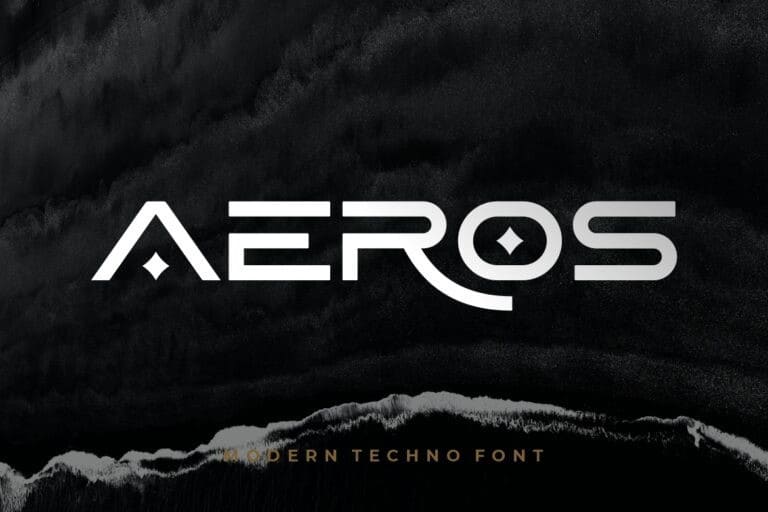
Aeros Font
Aeros Display Font is a mono weight and ultra modern sans apt for a wide range of typographic applications and printed materials. Made from font designer named HansCo. Suitable for logotype, branding, packaging, quotes, poster, shirt, book, invitation and more custom design. The features uppercase, lowercase, numeral, punctuation & symbol, multilingual support.